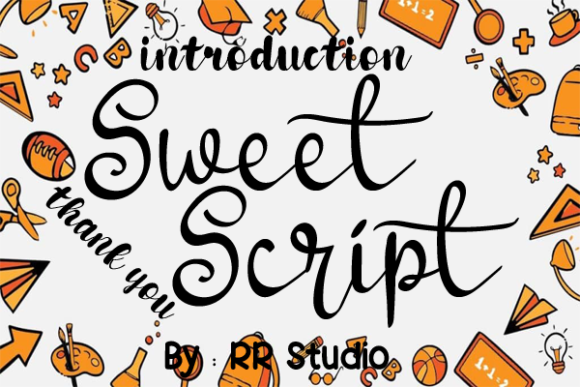
About Sweet Script Font
Sweet Script is a ravishing handwritten font. This versatile script font has a wide spectrum of applications ranging from greeting cards to headlines and is guaranteed to add a romantic feel to your next project.